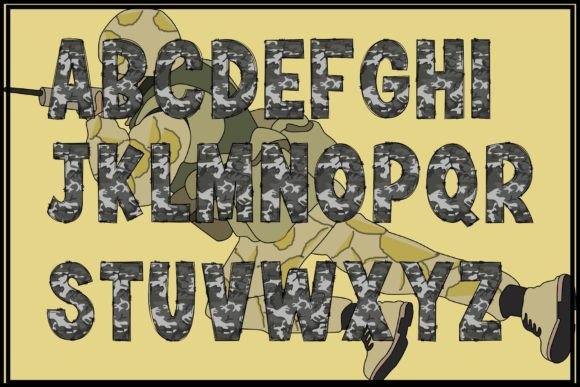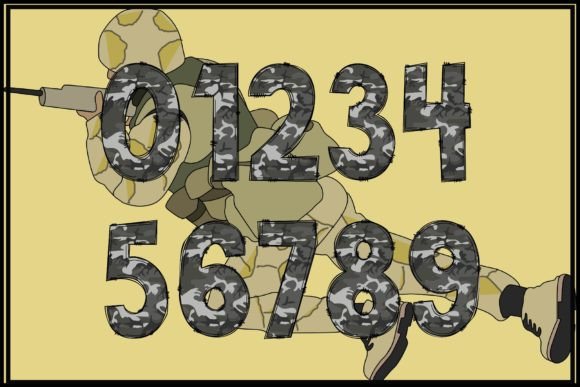
Introducing Camou Font: The Bold Military Camouflage Font for Designers
Are you looking for a font that adds a touch of military ruggedness to your designs? Look no further than Camou Font, a bold and striking military camouflage font that’s perfect for making your designs stand out. With its unique gray pattern, Camou Font is ideal for designers and crafters who want to add a bold and edgy touch to their work.
What is Camou Font?
Camou Font is a bold military camouflage font that’s designed to give your designs a rugged and edgy look. The font features a gray pattern that’s reminiscent of military camouflage, making it perfect for designs that require a bold and striking look. Whether you’re working on a poster, t-shirt design, or any other project, Camou Font is sure to make your design stand out.
Key Features of Camou Font
- Bold and striking design: Camou Font features a bold and striking design that’s perfect for making your designs stand out.
- Gray pattern: The font’s gray pattern gives it a unique and edgy look that’s perfect for military-inspired designs.
- High-quality design: Camou Font is designed with high-quality and clarity in mind, making it perfect for use in a variety of design projects.
- Easily readable: Despite its bold design, Camou Font is easily readable, making it perfect for use in designs where clarity is important.
How to Use Camou Font in Your Designs
Camou Font is a versatile font that can be used in a variety of design projects. Here are a few ideas for using Camou Font in your designs:
- T-shirt designs: Camou Font is perfect for t-shirt designs that require a bold and edgy look.
- Poster designs: The font’s bold design makes it perfect for use in poster designs where you want to grab the viewer’s attention.
- Logo designs: Camou Font can be used to create bold and striking logos that are perfect for military-inspired brands.
- Social media graphics: The font’s easily readable design makes it perfect for use in social media graphics where clarity is important.
Tips for Getting the Most Out of Camou Font
Here are a few tips for getting the most out of Camou Font:
- Use it sparingly: While Camou Font is a bold and striking font, it can be overwhelming if used too much. Use it sparingly to add emphasis to your designs.
- Pair it with a simple font: Pairing Camou Font with a simple font can help to create contrast and make your designs more visually appealing.
- Experiment with different colors: While the gray pattern of Camou Font is striking, you can also experiment with different colors to create different effects.
Camou Font is a bold and striking military camouflage font that’s perfect for designers and crafters who want to add a touch of ruggedness to their designs. With its unique gray pattern and easily readable design, Camou Font is ideal for use in a variety of design projects. Whether you’re working on a t-shirt design, poster, or logo, Camou Font is sure to make your design stand out.